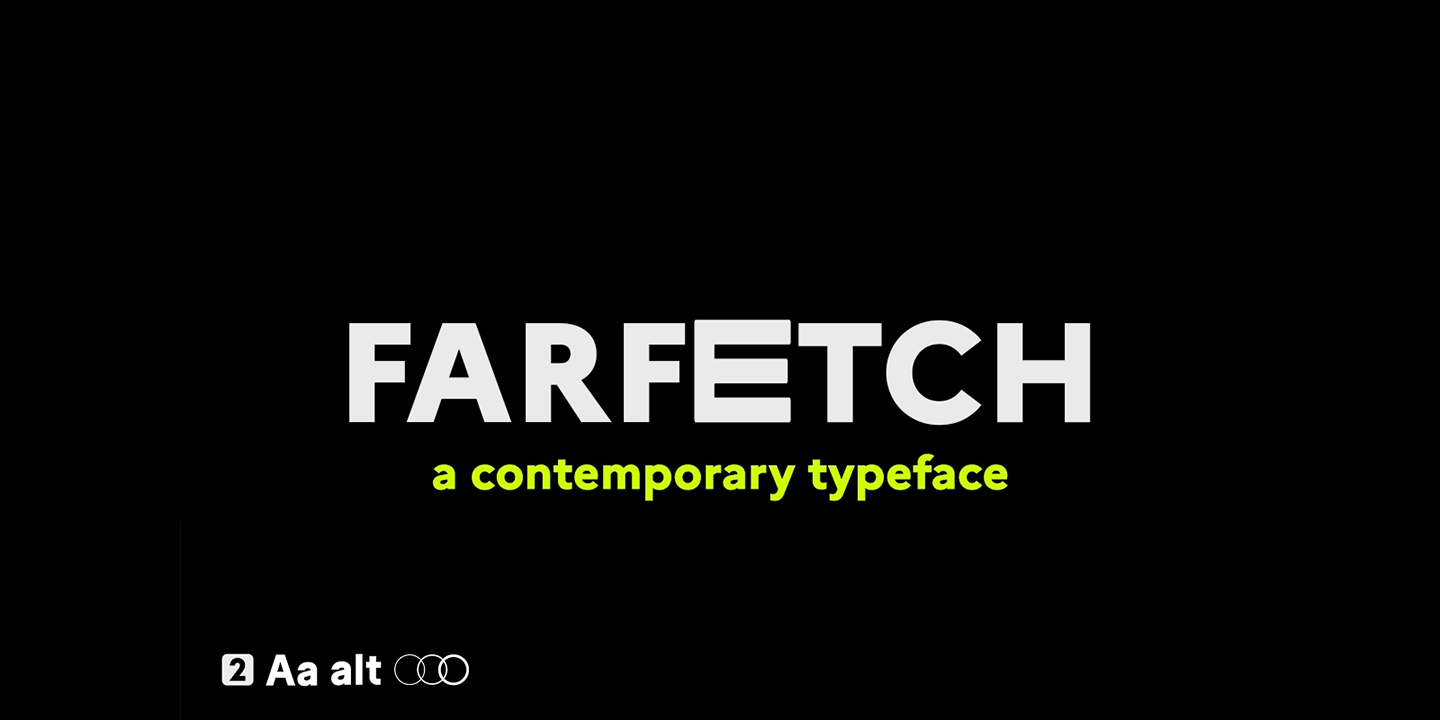
Far Fetch Font excels in creative applications including adventure branding, outdoor gear companies, travel agencies, gaming logos, sci-fi movie posters, fantasy book covers, exploration-themed websites, and innovative startups that need distinctive typography with adventurous character and bold visual impact.
What makes Far Fetch Font exciting is its unique ability to capture the spirit of exploration and discovery through distinctive letterforms. This captivating typeface combines rugged character with modern sophistication, creating an irresistible appeal for brands that want to communicate adventure, innovation, and the courage to venture into uncharted territories.
The Far Fetch Font family includes regular, bold, and extra-bold weights, along with distressed and clean variations for different aesthetic needs. Each style maintains the font's characteristic adventurous spirit while providing designers with versatile options for creating compelling visual narratives and dynamic brand experiences.
Creative professionals consistently select Far Fetch Font Free Download for projects requiring bold personality and memorable impact. This versatile typeface seamlessly adapts to various design contexts while maintaining its distinctive edge, ensuring brands stand out in competitive markets and connect with audiences seeking authentic, adventurous experiences.
The font's distinctive character shapes and dynamic proportions make it particularly effective for brands targeting adventurous demographics. Far Fetch Font represents the perfect balance between boldness and readability, offering designers a powerful tool for creating compelling brand stories that inspire exploration and capture imagination across diverse media platforms.